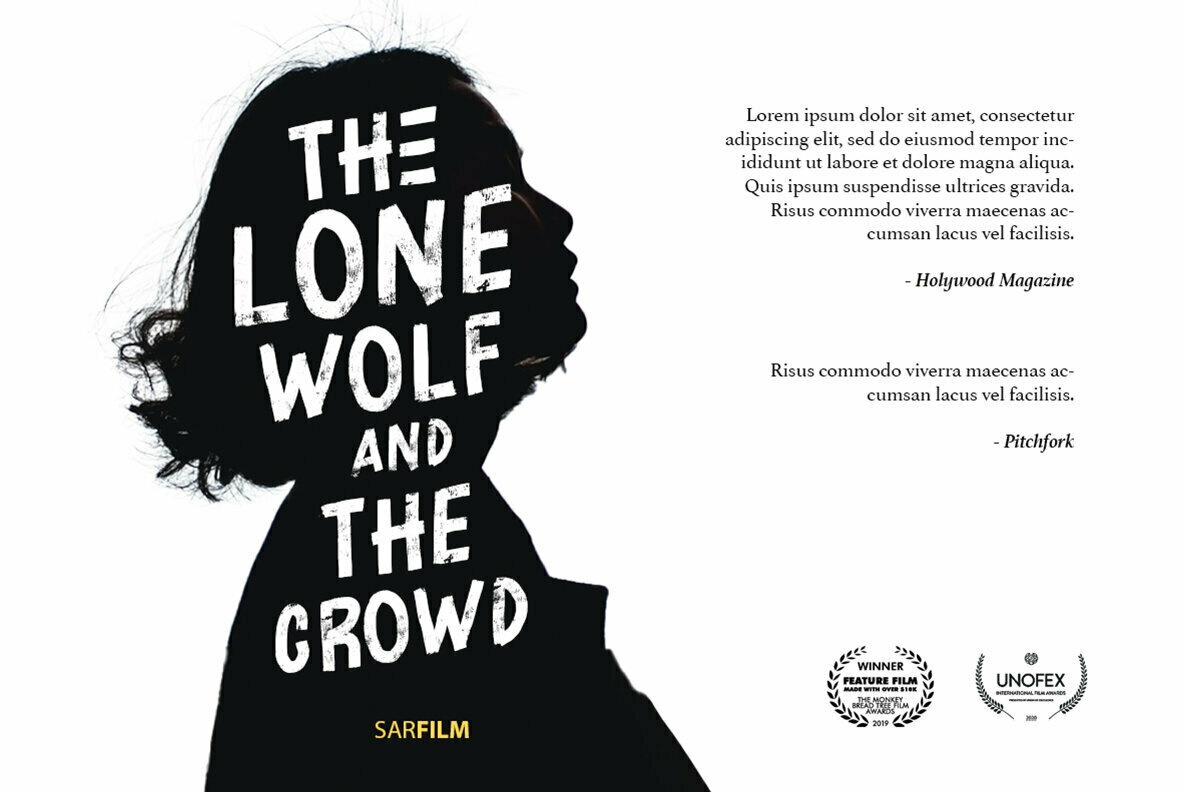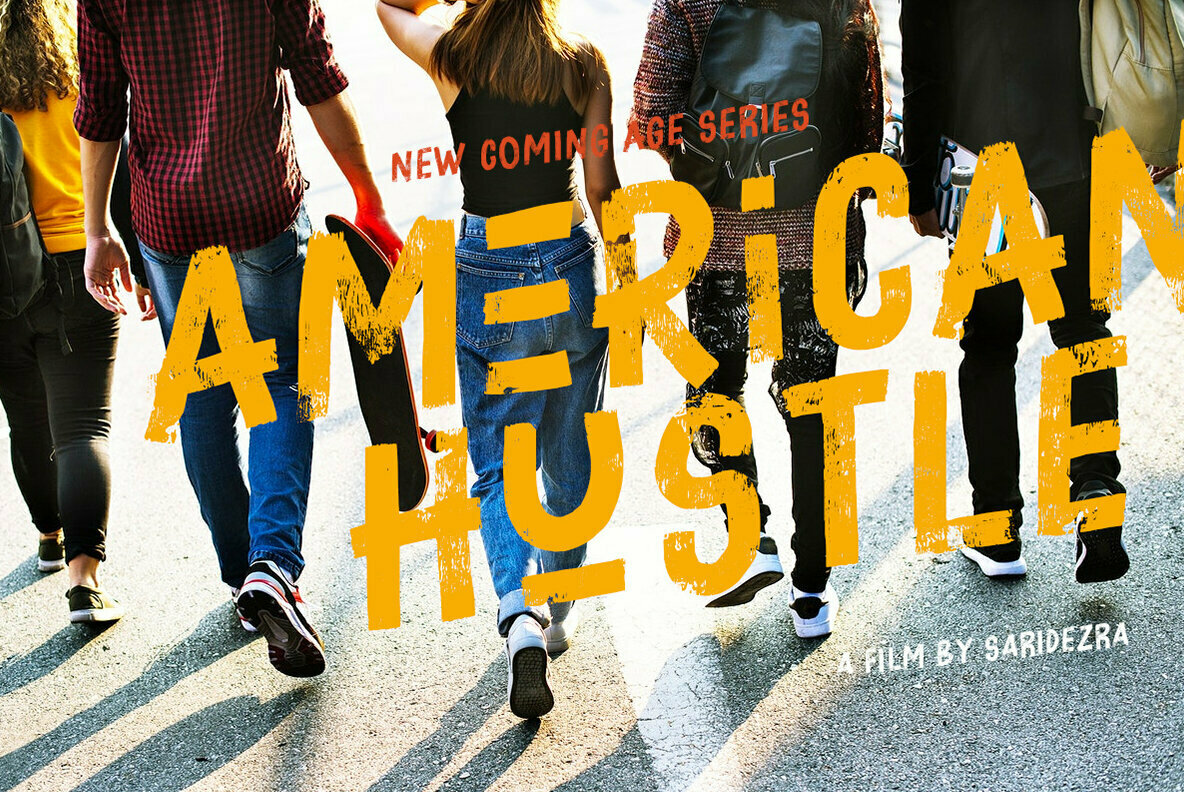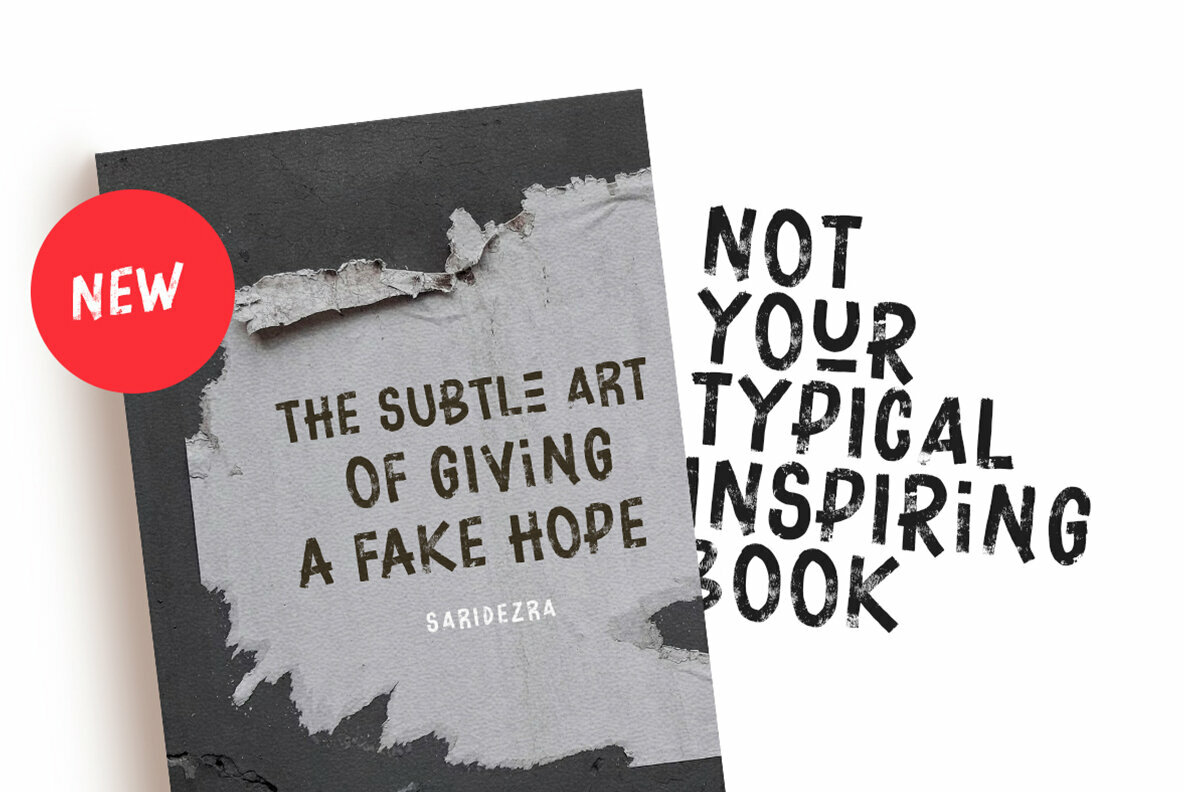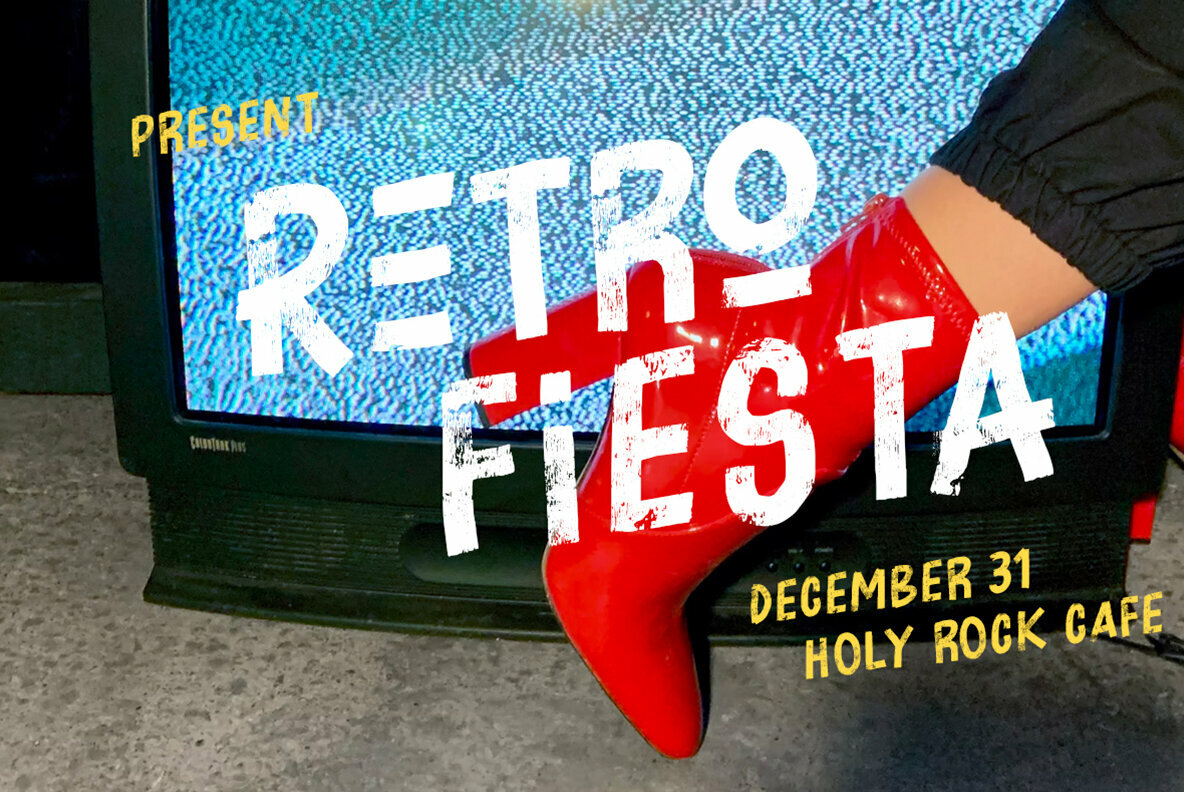
Broken Drive Font
Broken Drive Regular
For the daring designer, Broken Drive offers a textured, grunge sans-serif font that adds raw character to any project. Reminiscent of urban landscapes and the avant-garde, its natural textures ensure your posters and presentations maintain a bold, striking presence. Broken Drive is particularly suited for dynamic and engaging designs, with a flair for the unconventional. Its versatility allows for effective use across a range of mediums, though it truly excels in movie posters. The ability to mix uppercase and lowercase letters adds a touch of authenticity, evoking a handmade feel.Broken Drive: A Grunge Display Font